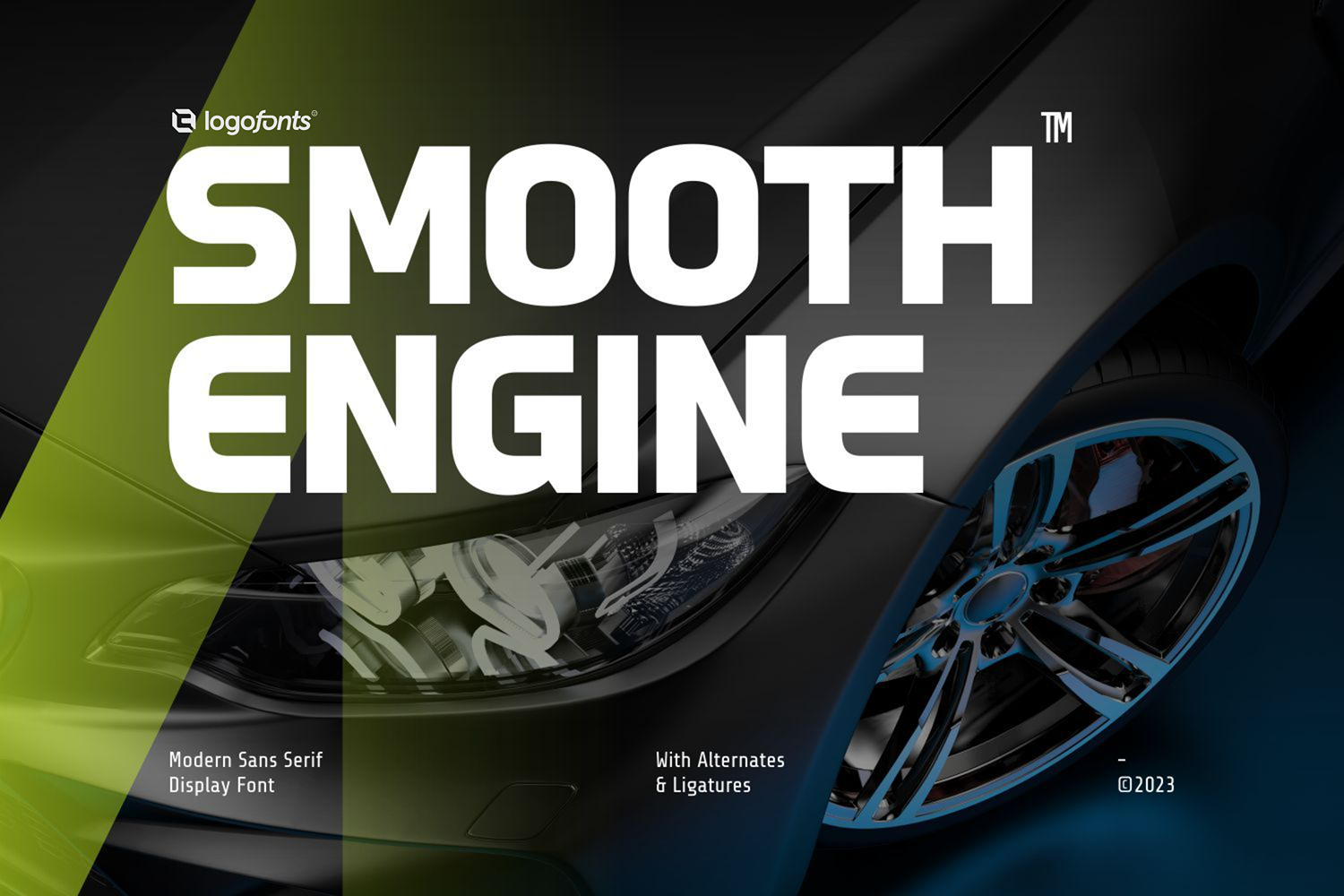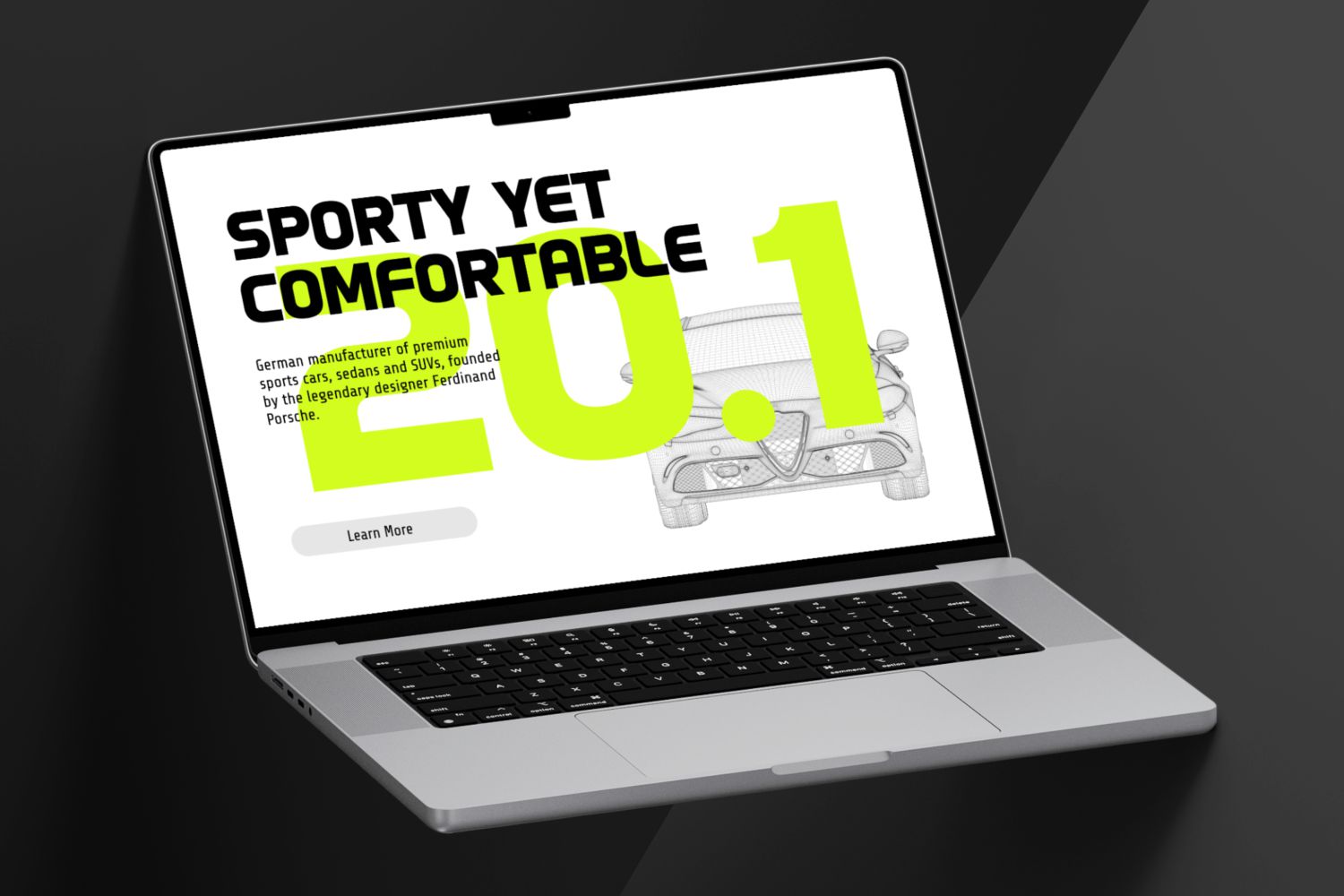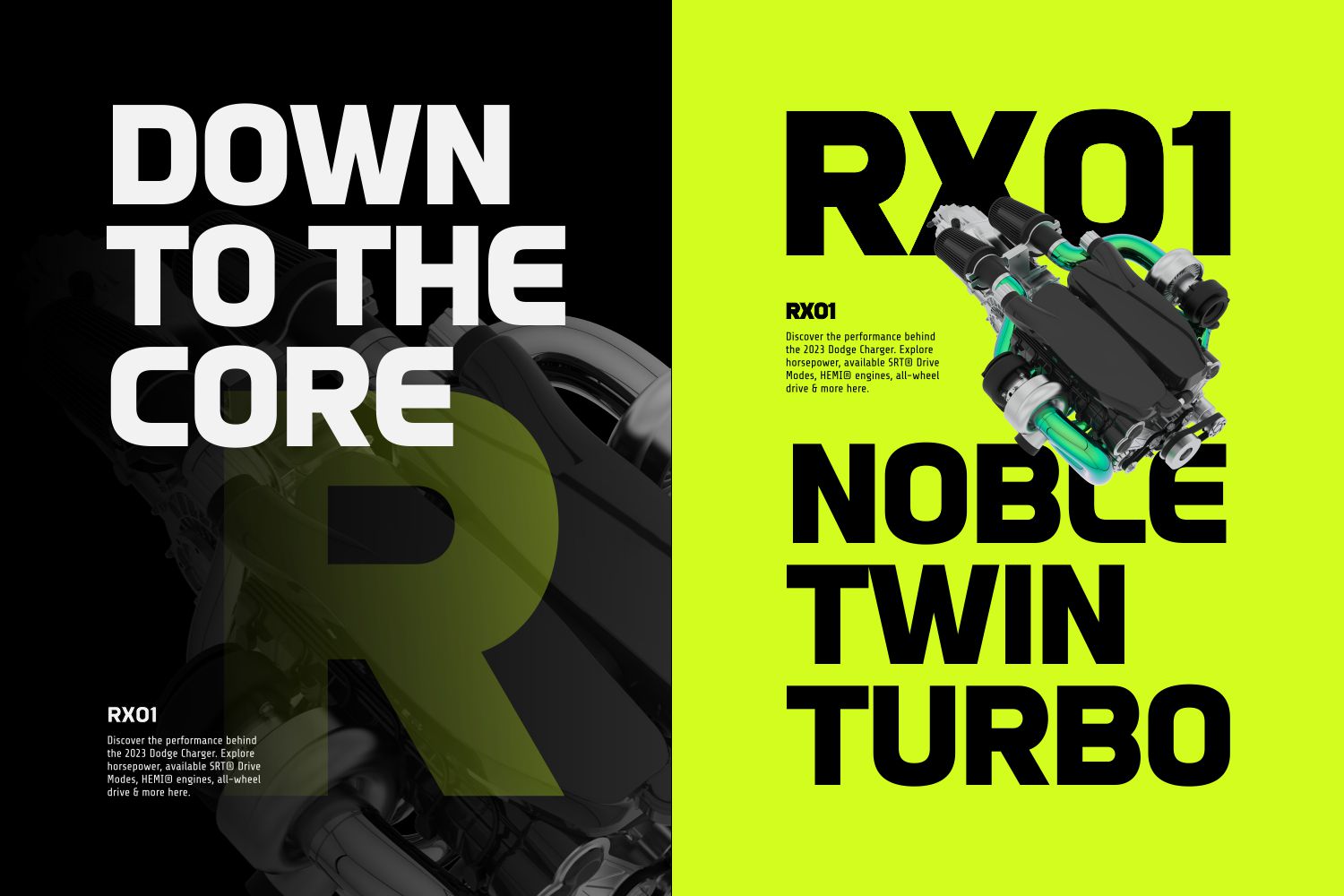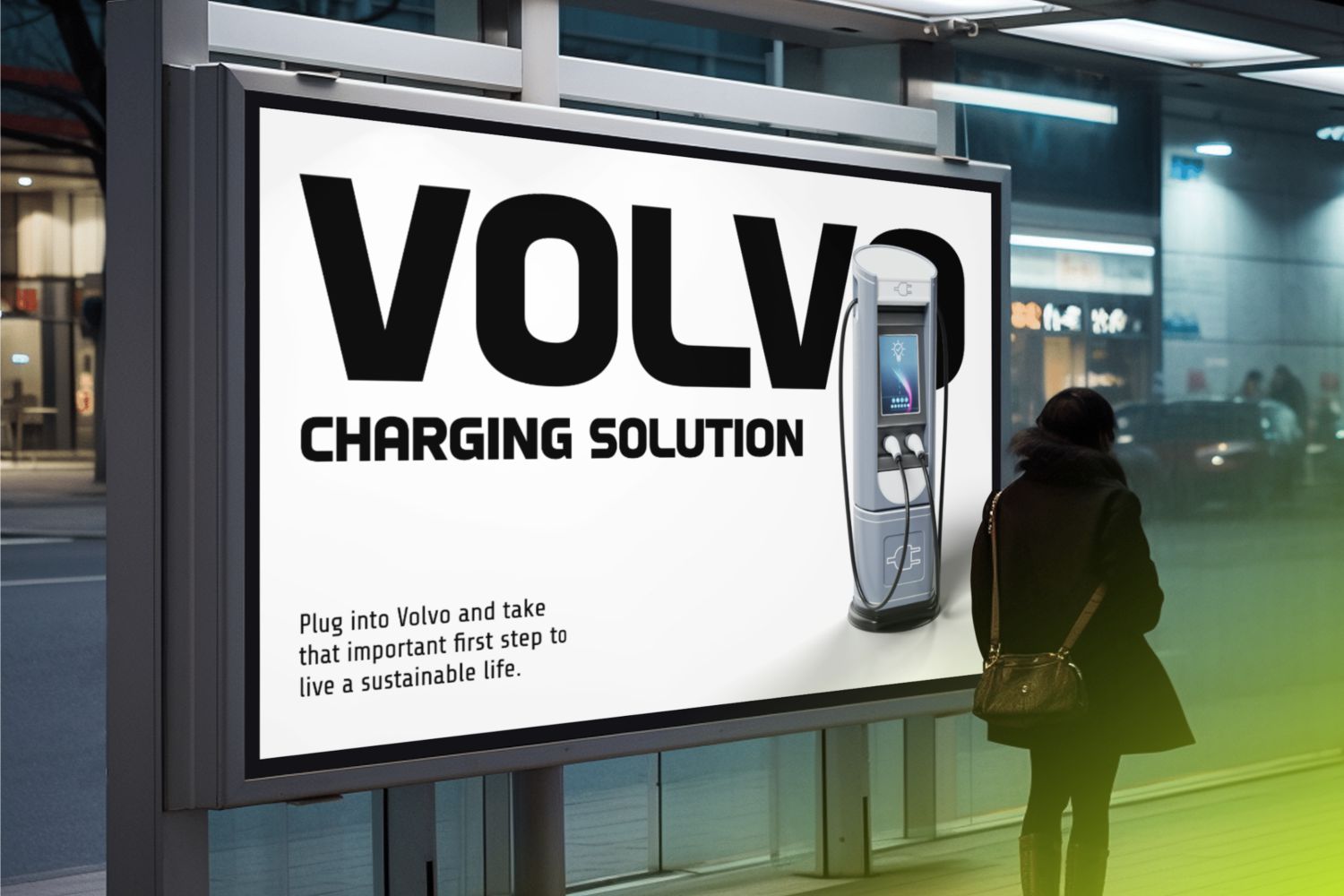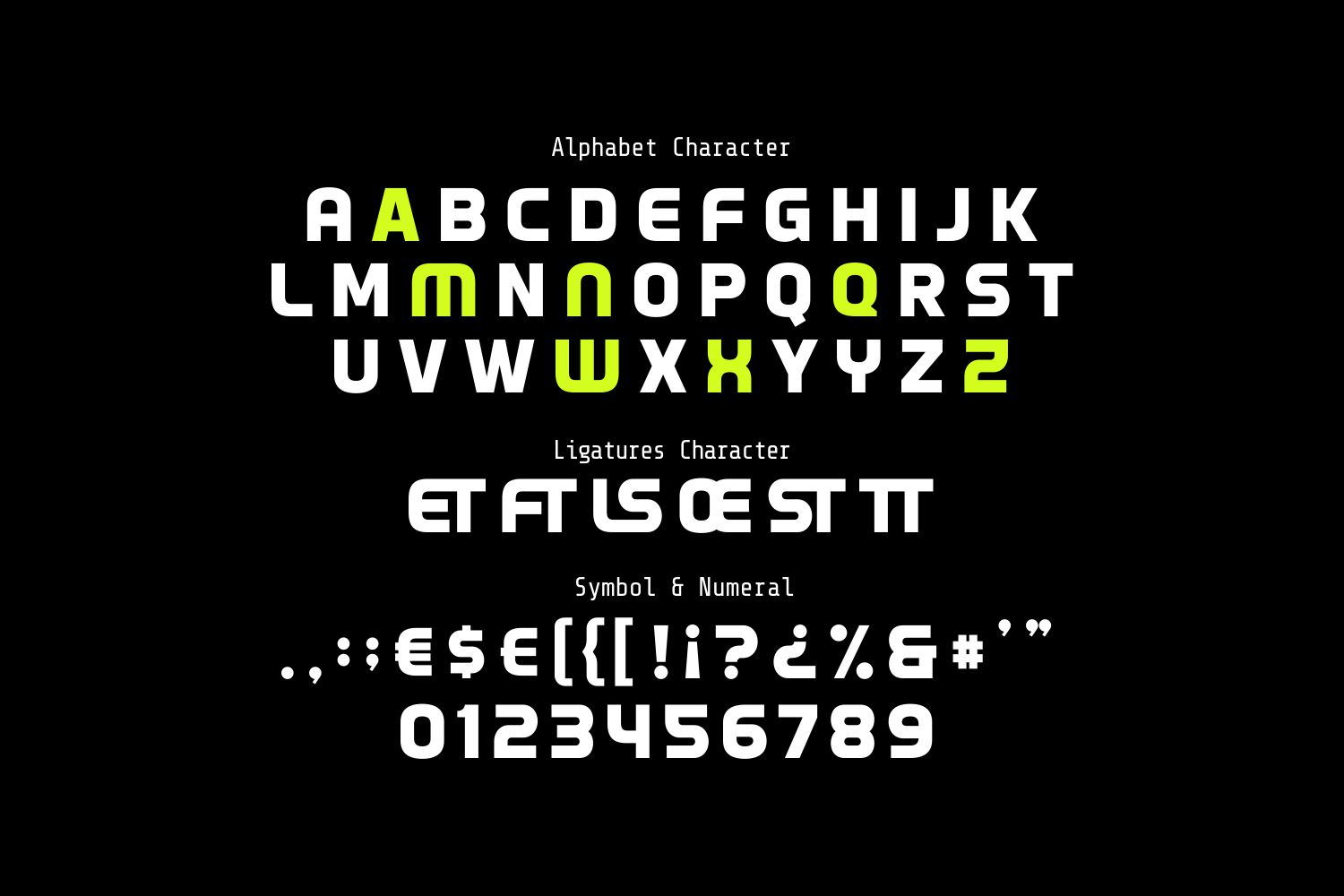
Smooth Engine is a bold and modern sans serif display font with aerodynamic curves and industrial strength. Its confident structure and high readability make it perfect for use in automotive branding, tech product advertising, and futuristic interfaces. The font is equipped with alternate characters and strong ligatures, providing visual variety without losing clarity. Every letterform is purposefully designed with rounded tension points and firm baseline stability—ideal for high-impact headlines and sleek product titles.
Inspired by motion, machinery, and speed, Smooth Engine radiates power and precision. Whether used in print layouts, website hero sections, or branding for modern engineering and transportation, it delivers an energetic and professional look. Its versatility bridges technology with modern visual communication, positioning it as a go-to choice for tech-savvy industries and sleek digital branding.
Smooth Engine